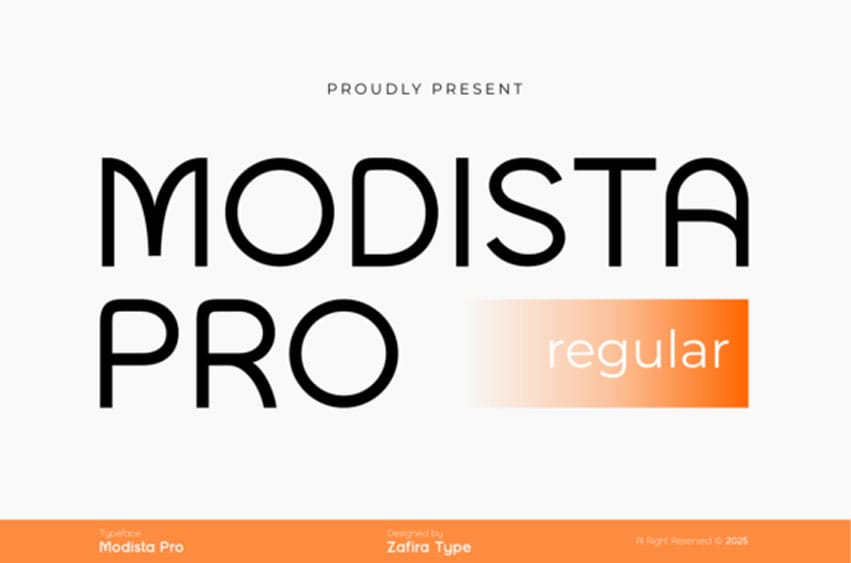
Modista Pro Font Showcase your style with Modista Pro, an epitome of elegance and modernity crafted into a sans-serif font. Inspired by clean geometric principles, it encapsulates sheer balance and proportion, becoming an outright choice for diverse design endeavours.
Be it branding, web typography, or editorial design, Modista Pro paves the way for clarity and visual grandeur. Its inherent ability to foster powerful typographic hierarchies ensures a captivating and professional appearance in all applications. Experience the fusion of aesthetics and functionality with Modista Pro.